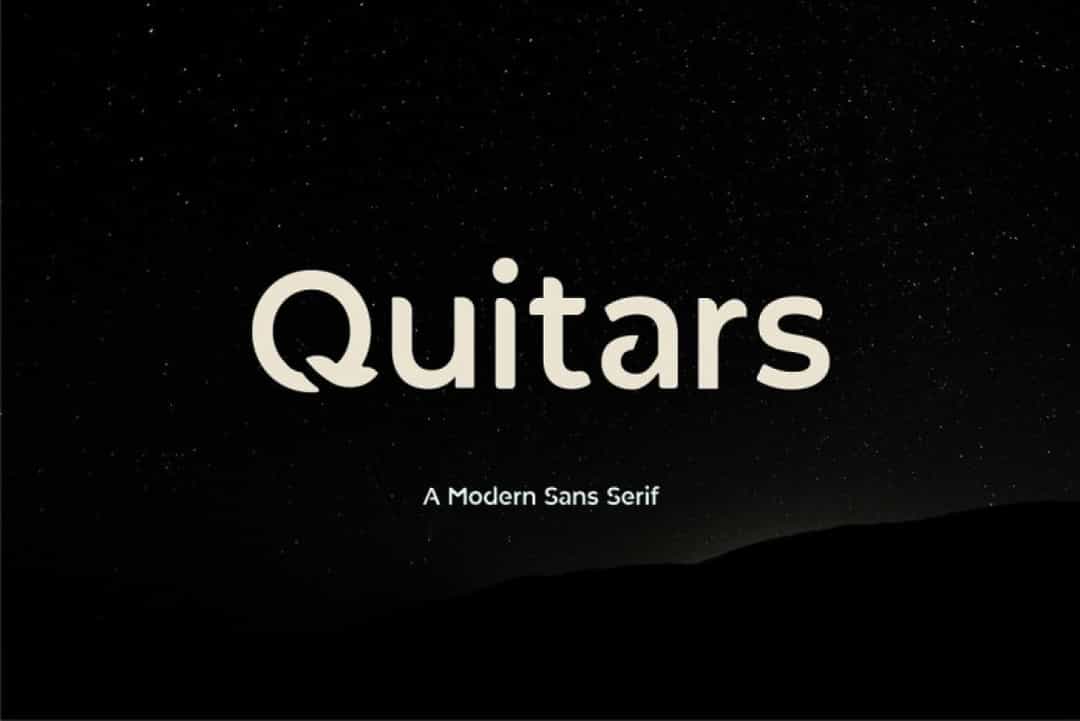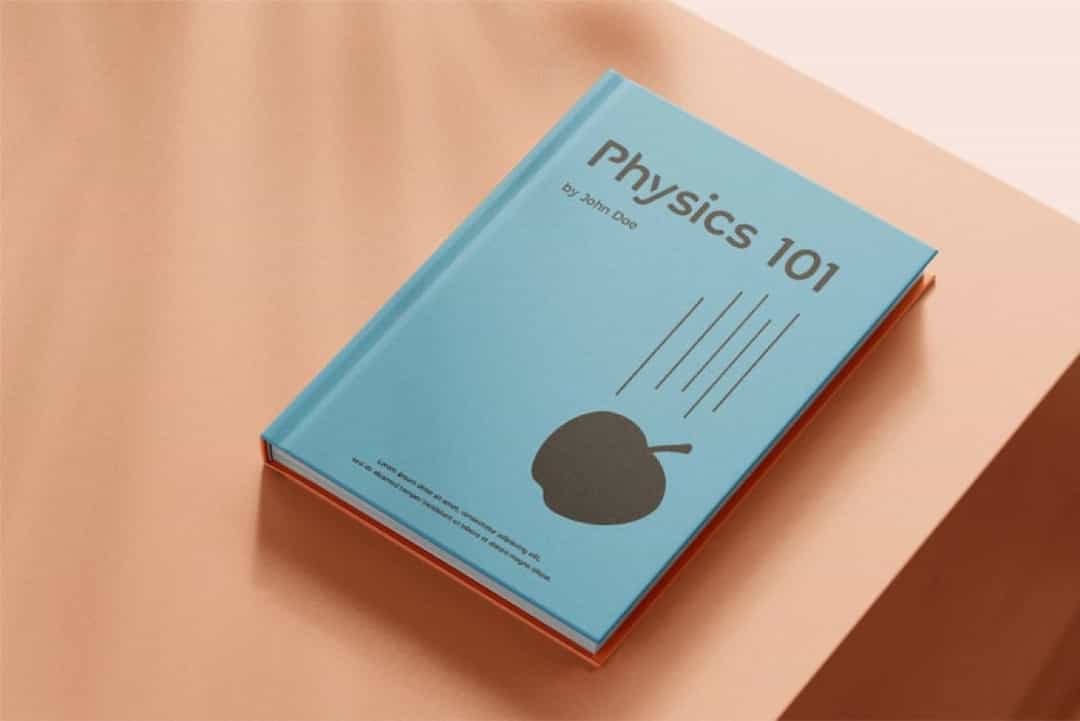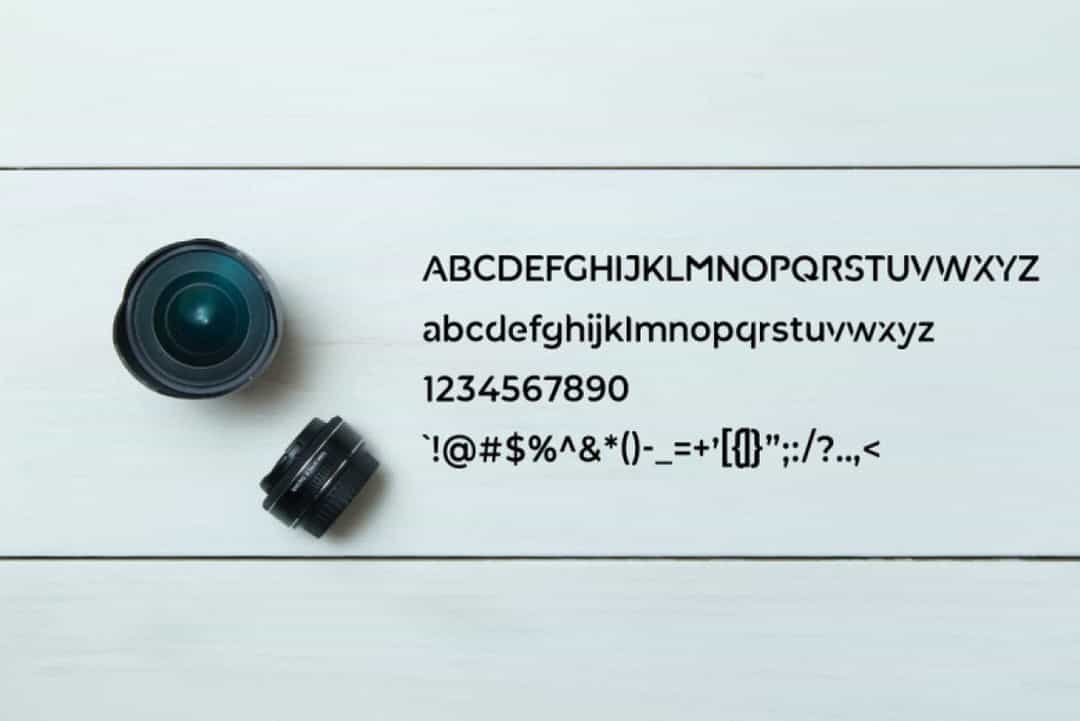
Quitars is an eye-catching sans serif font with strong lines and soft rounding that gives it a modern aesthetic. Ideal for adding personal flair to designs, Quitars is an exceptional font to give digital designs that special personal touch.